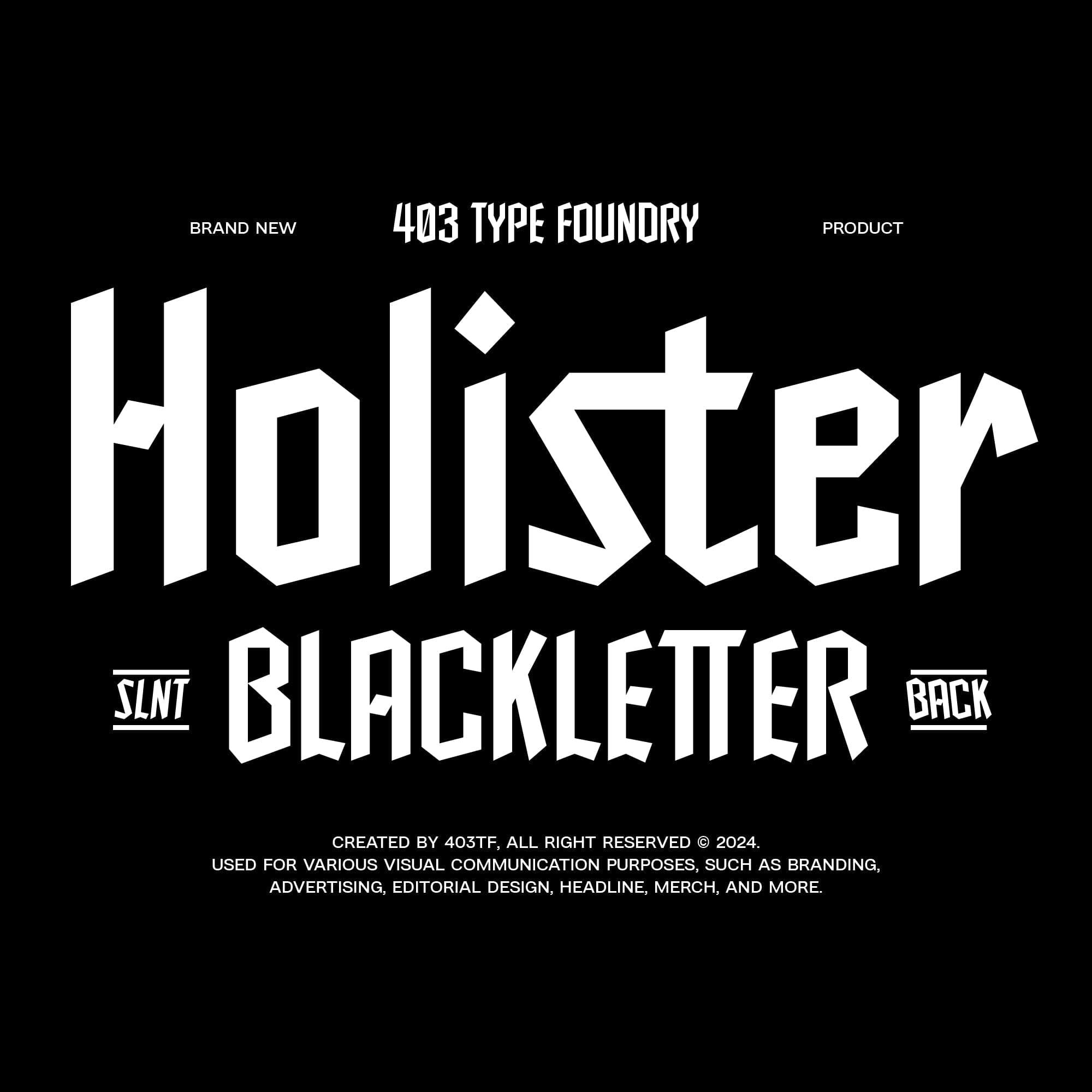
<p><strong>403 Holister</strong> is a contemporary blackletter typeface that reimagines the gothic script with a modern twist. Its slanted and backslant features create a dynamic and energetic feel, while its intricate details and sharp edges evoke a sense of strength and sophistication. With 530 glyphs, OpenType features, ligatures, and multilingual support, <strong>403 Holister</strong> offers a versatile tool for designers seeking a unique and impactful typographic solution.</p>